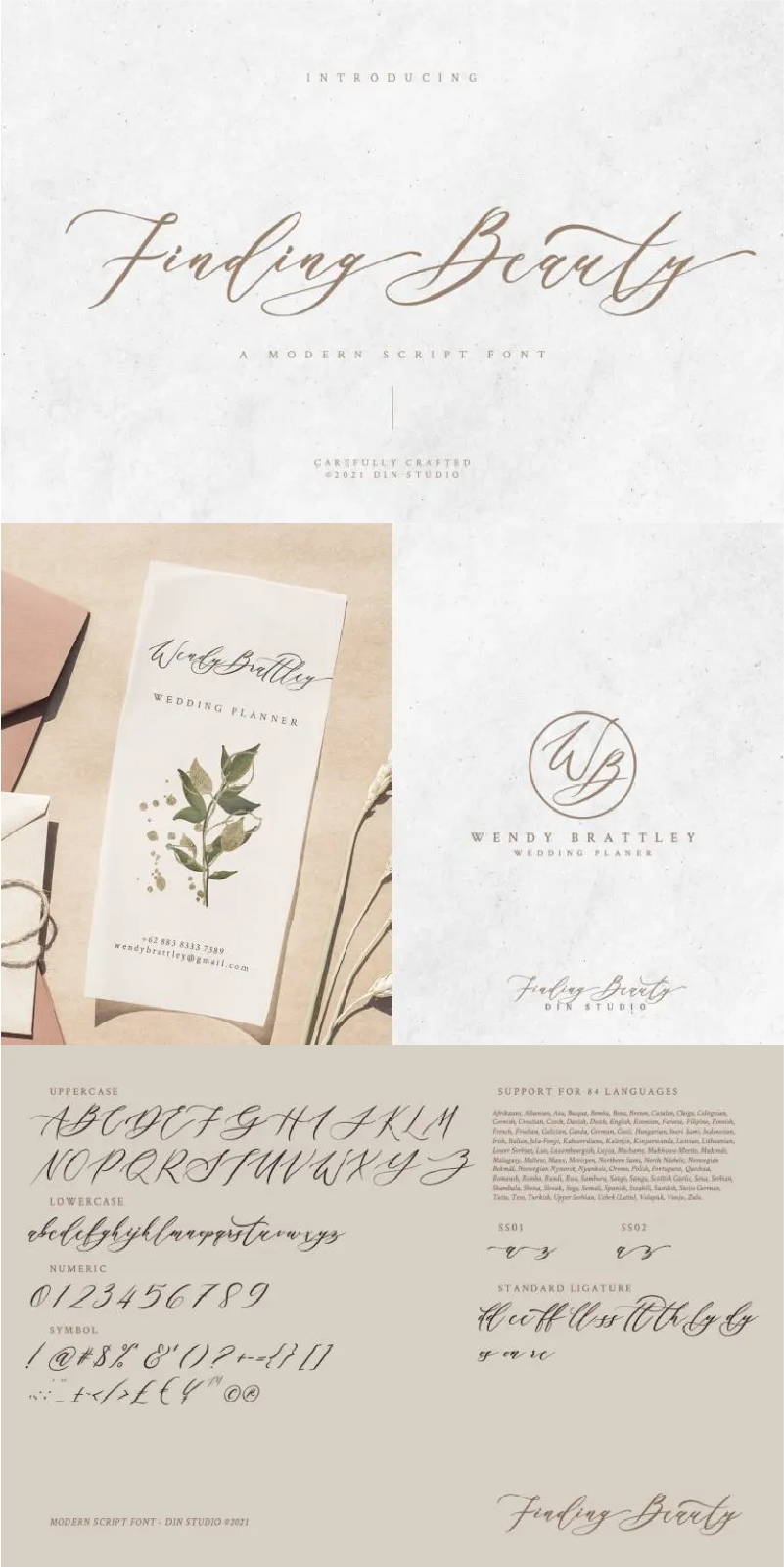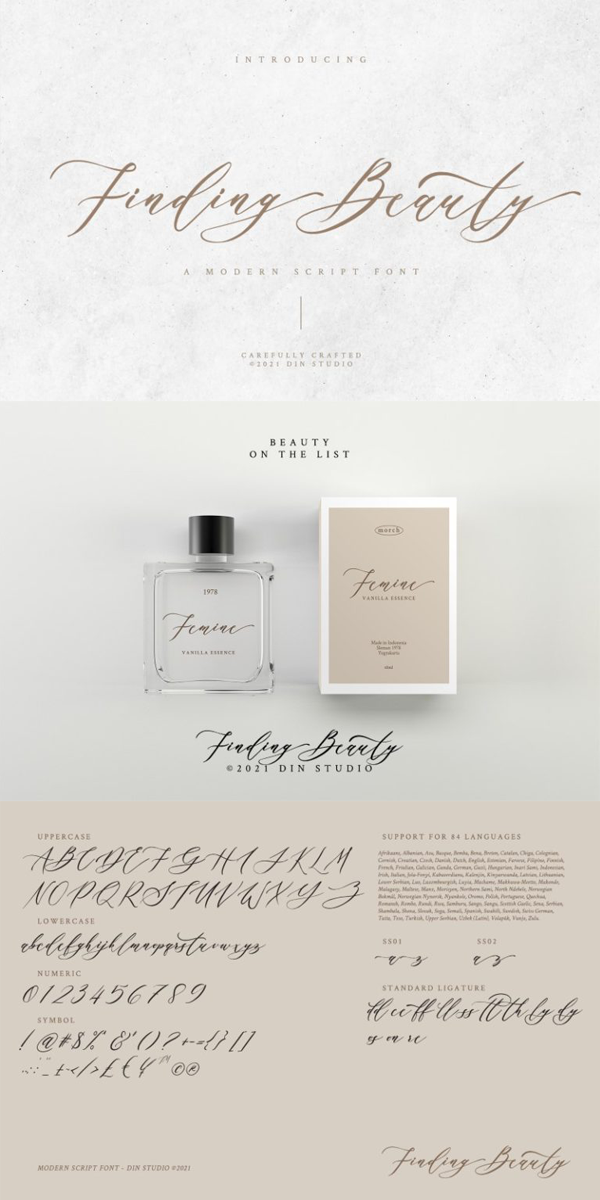
Finding Beauty Font
About Finding Beauty
Finding Beauty – A Script Font.
Finding Beauty is designed and carefully handcrafted elegantly and gracefully to embrace your project. This font will never go wrong for your audience, clients, guests or anyone around you! Use it for headings, logos, business cards, printed quotes, invitations of all sorts, cards, packaging, and your website or social media branding.
Our font always includes Multilingual option to make your branding globally recognized. See the previews above to get some inspiration on how you can use them.
-Standard Ligatures
-Multilingual Support (84 languages)